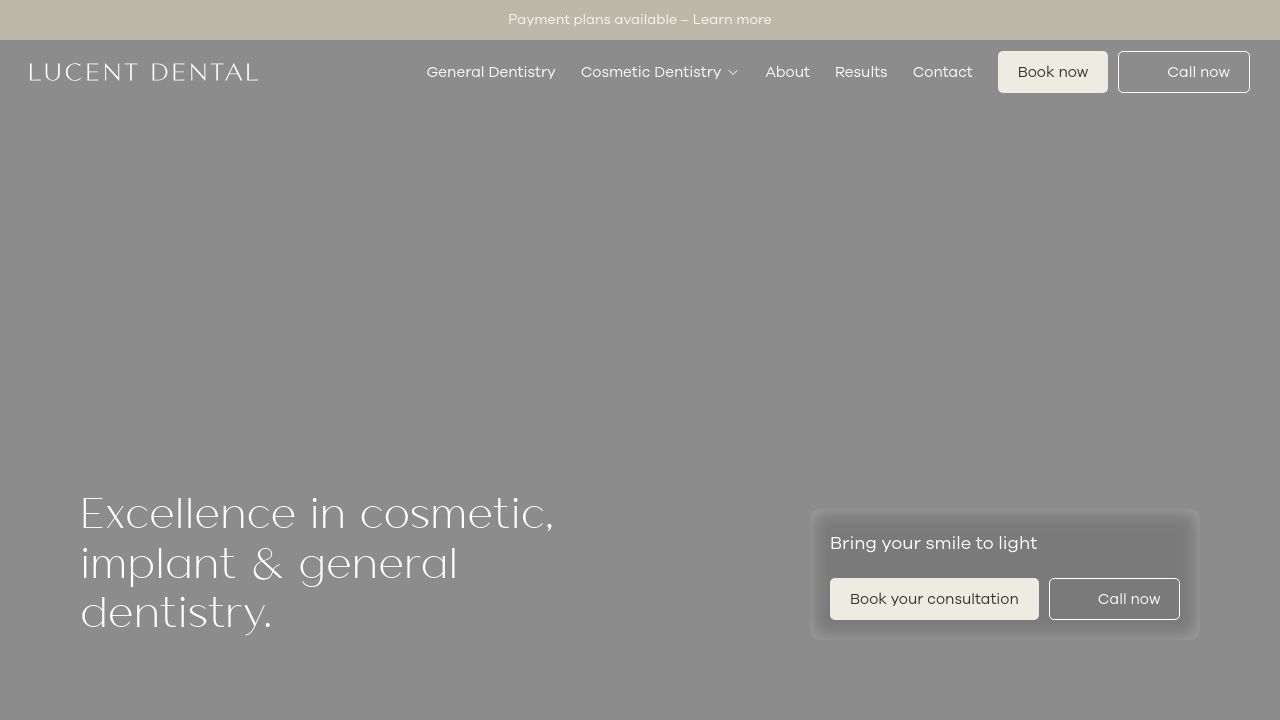
What fonts does Lucentdental use?
Lucent Dental, located in Corparoo, Brisbane, utilizes a thoughtful blend of typography to enhance its brand identity. The primary font, Inter, offers clarity and accessibility, while the Athena Light adds a touch of warmth. Galano Grotesque complements this with its unique character, providing a friendly yet professional touch. Together, these fonts create a welcoming environment for clients seeking world-class dental care.
Frequently asked questions about Lucentdental.com.au's fonts
What fonts are used on lucentdental.com.au?
Lucent Dental primarily uses Inter, Athena Light, and Galano Grotesque fonts. Inter is used for body text, while Athena Light and Galano Grotesque provide additional stylistic elements.
How do the fonts on lucentdental.com.au compare to alternatives?
Inter is favored for its readability and versatility, while Galano Grotesque offers a distinctive look compared to standard sans-serif options. Athena Light adds a unique flair not commonly found in other fonts.
What font weights are used on lucentdental.com.au?
Lucent Dental employs multiple weights, including Inter and Galano Grotesque in weights 400 and 500. Athena Light is typically used in weight 300, enhancing its delicate appearance.